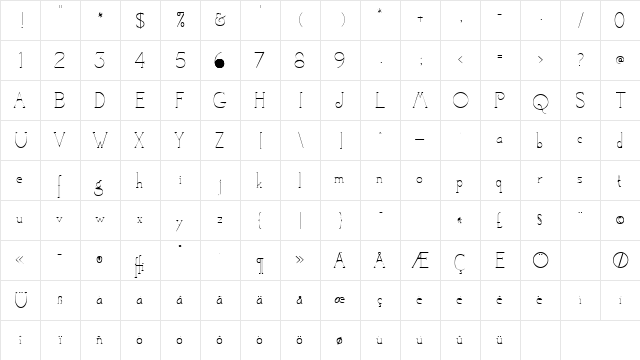
Tequila 1 Regular
Design Context for Tequila 1 Typeface
Tequila 1 takes a measured approach to typography — its balanced proportions and neutral character make it a reliable workhorse for both digital and print work.